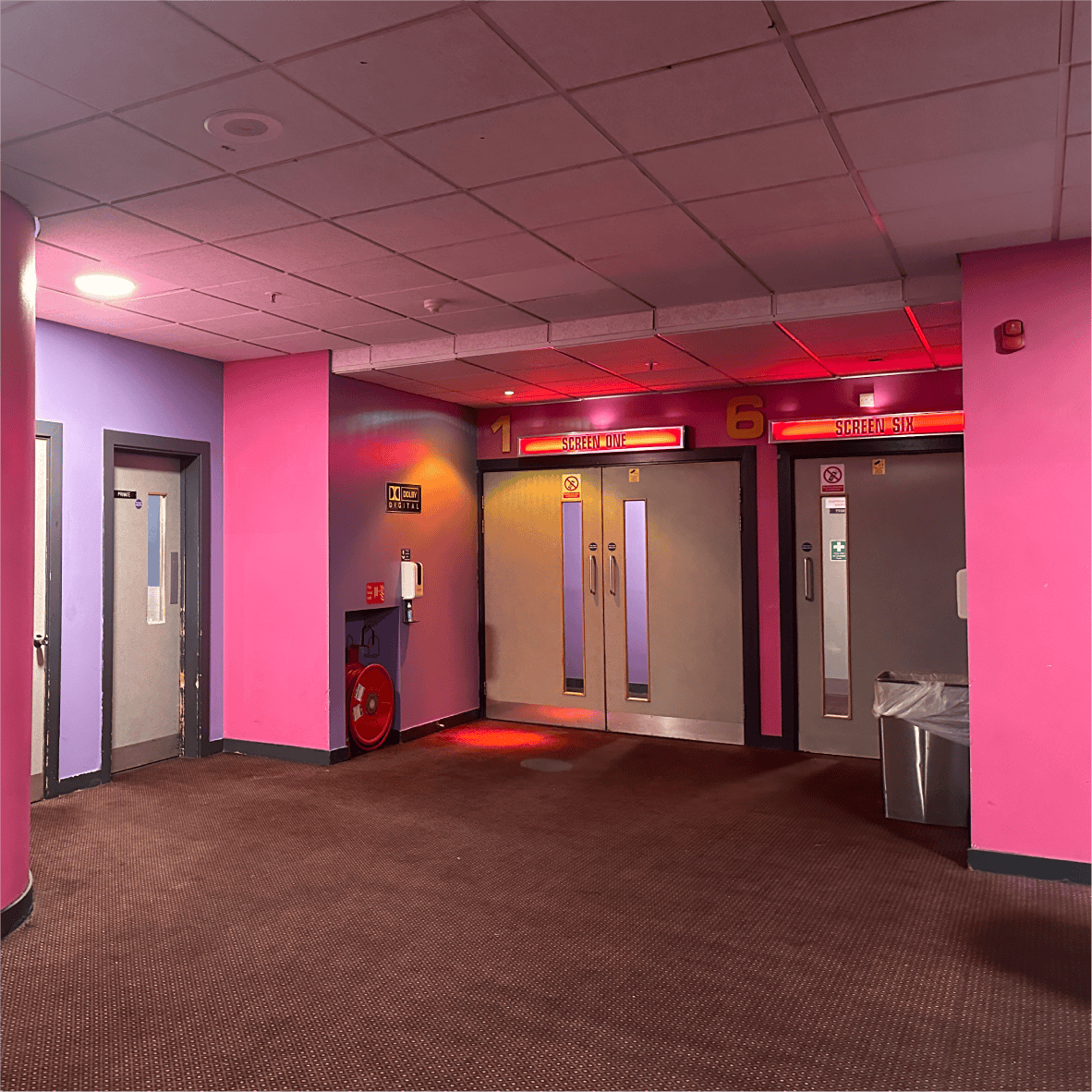
"Come into view" was inspired by the intricate details the Peckhamplex building has acquired over time. Exploring both the building's interior and exterior spaces at different times of the day allowed many different details to present themselves, particularly those that included the projection of light. Playing with a particular shape that these shadows exposed, I was left with a series of angular letters of contrasting thicknesses. "Come Into View" works best when used for displaying text, particularly magnified. It is only when these letters are put together do they become legible, exposing the user's intent.